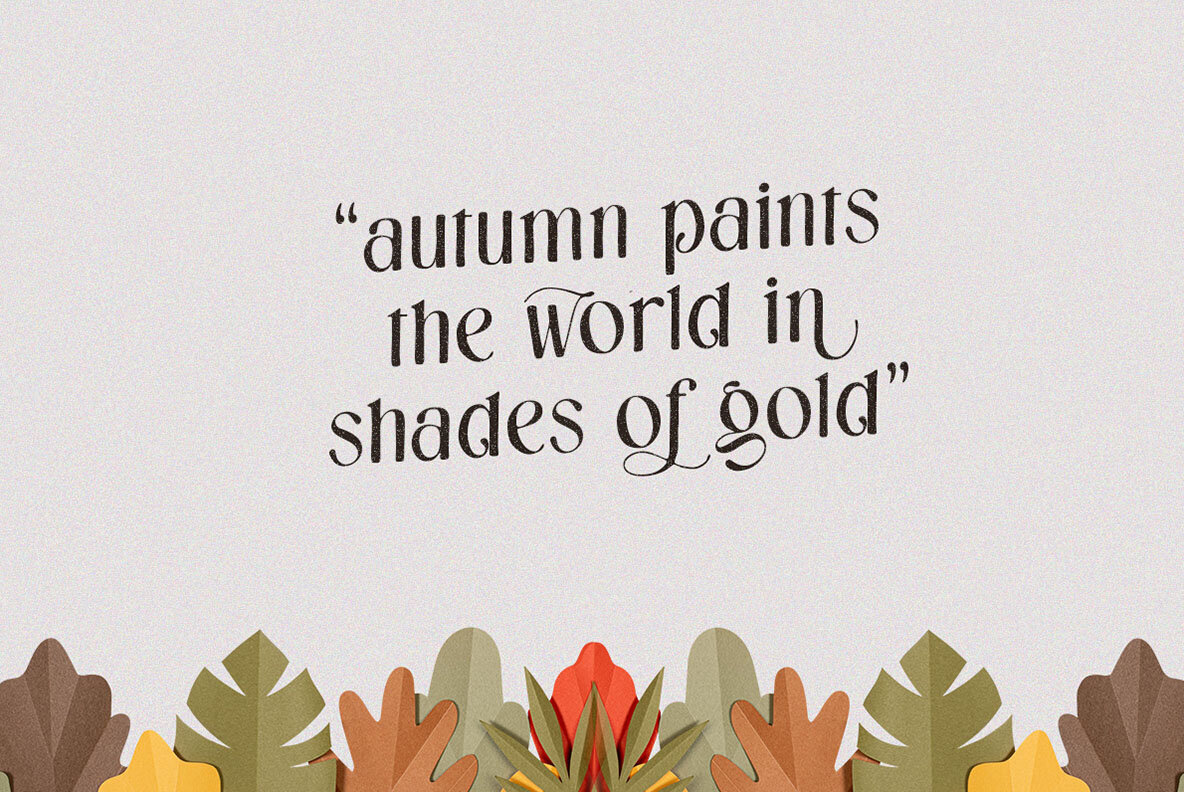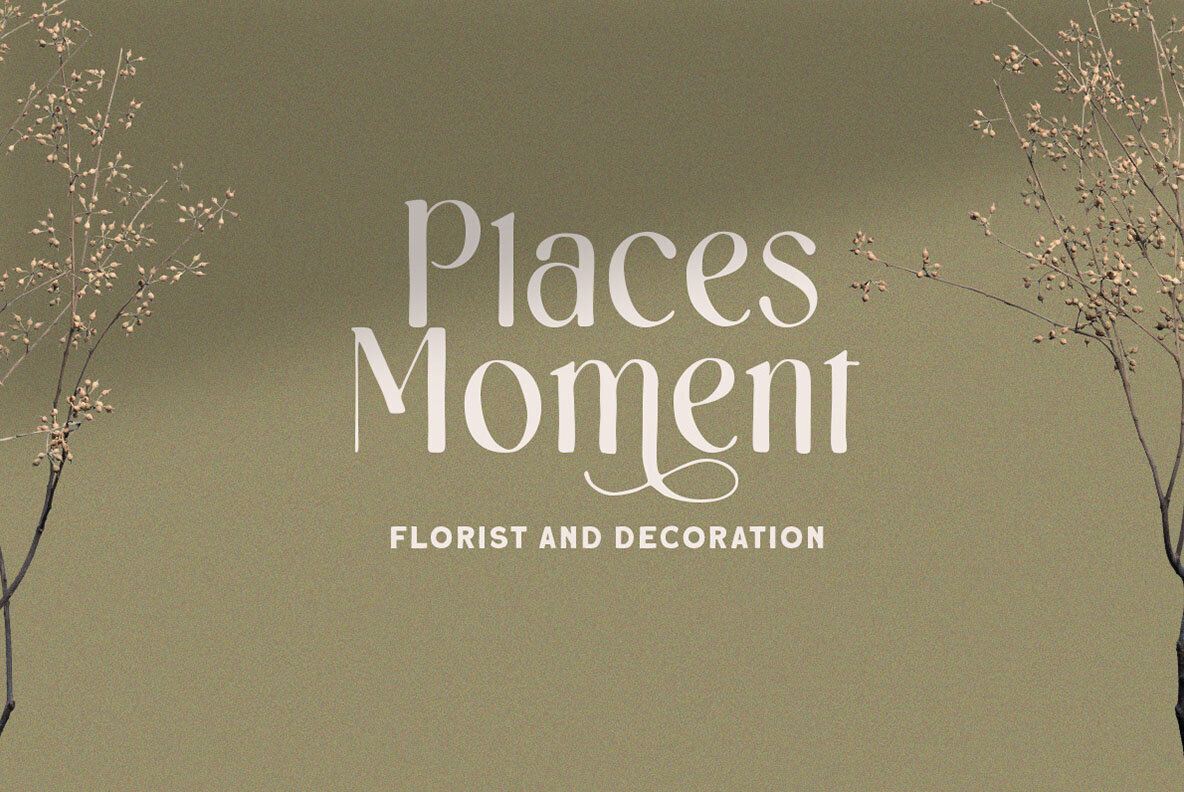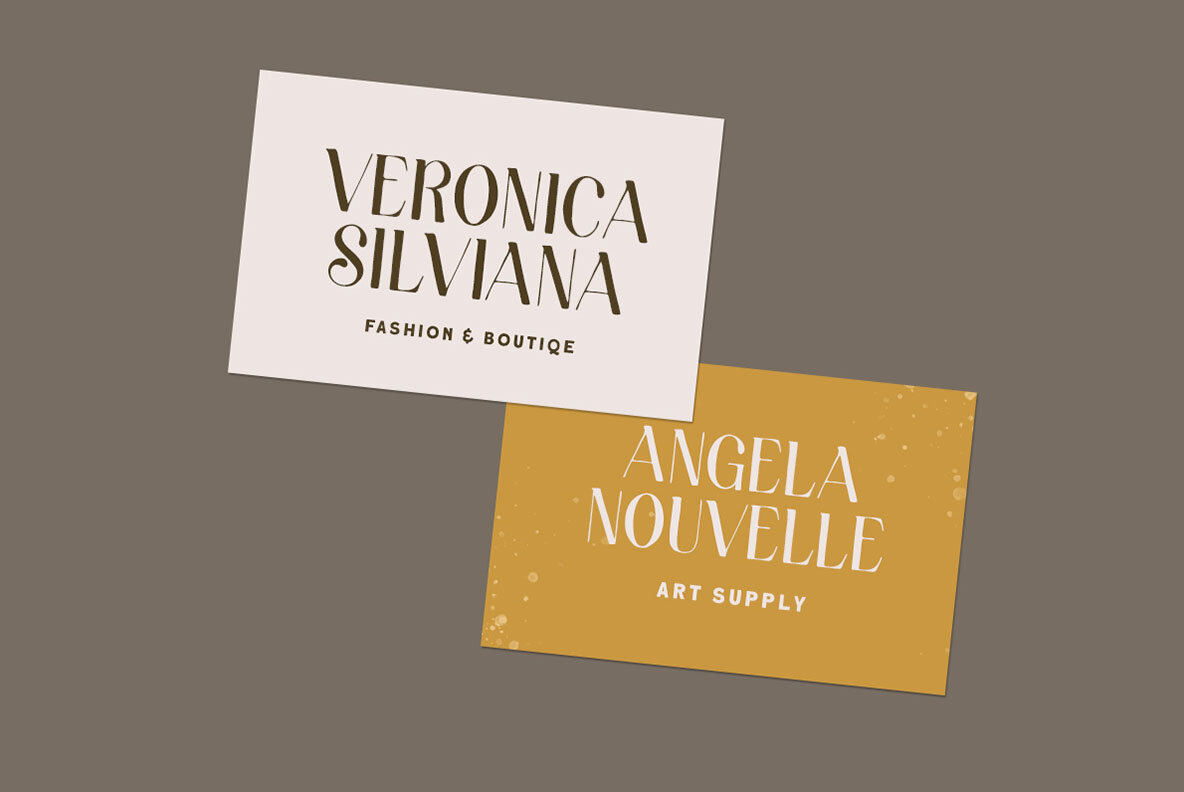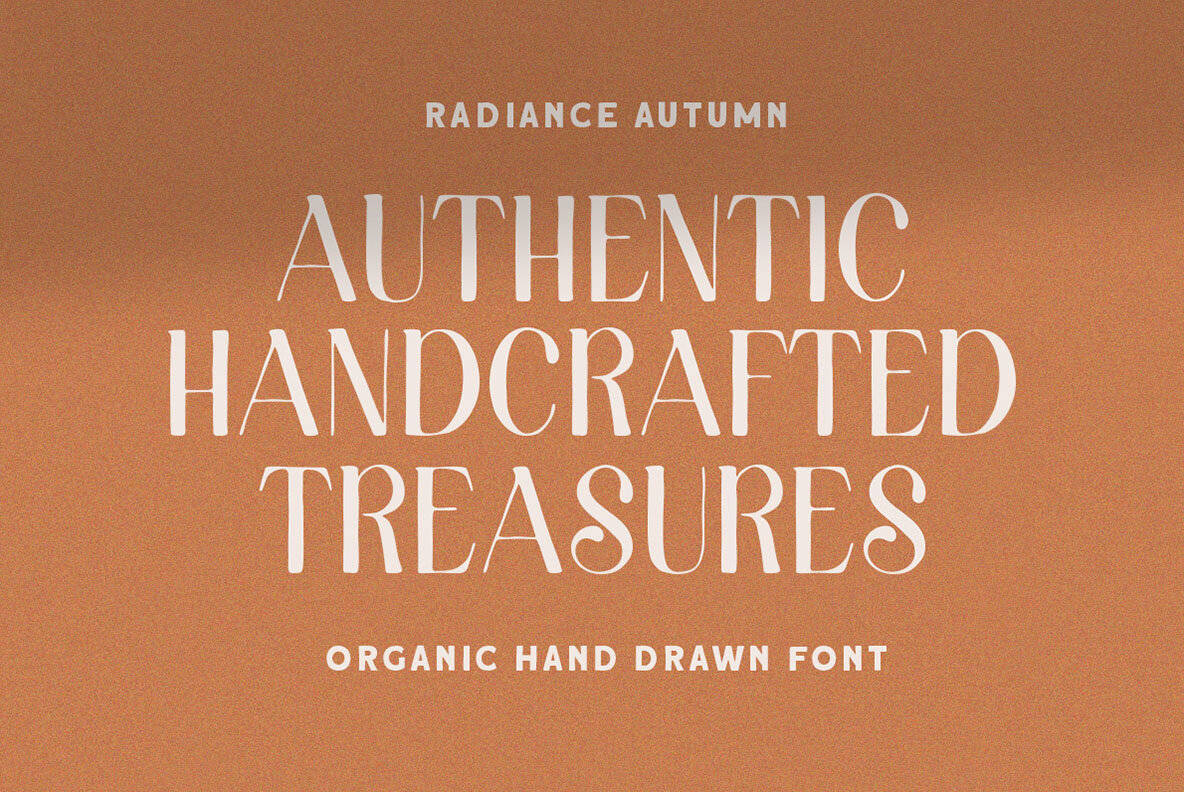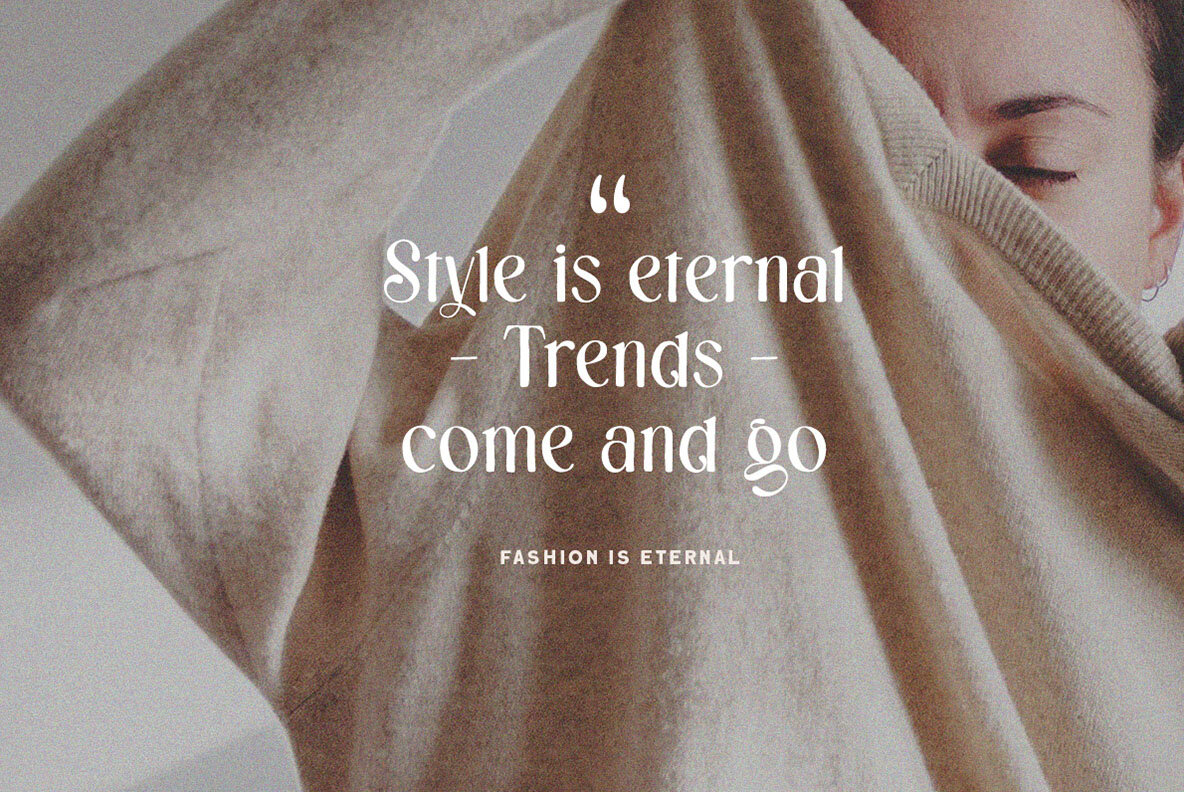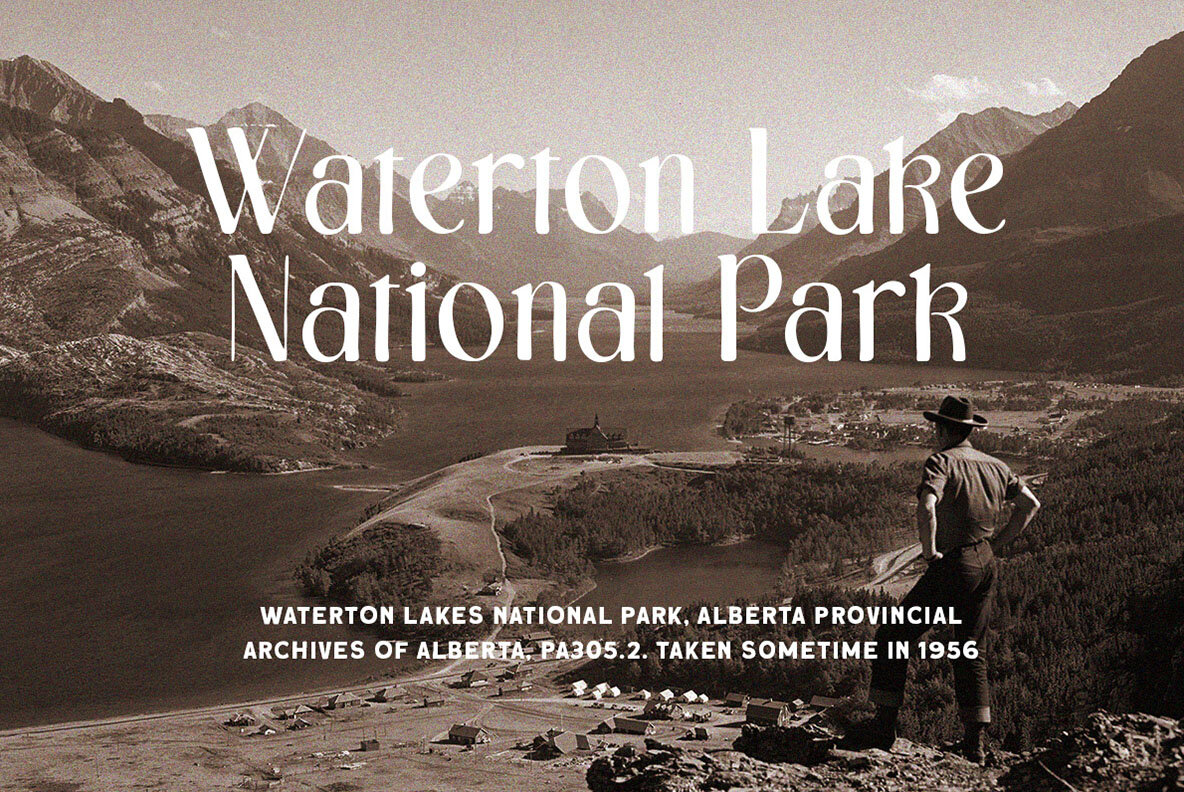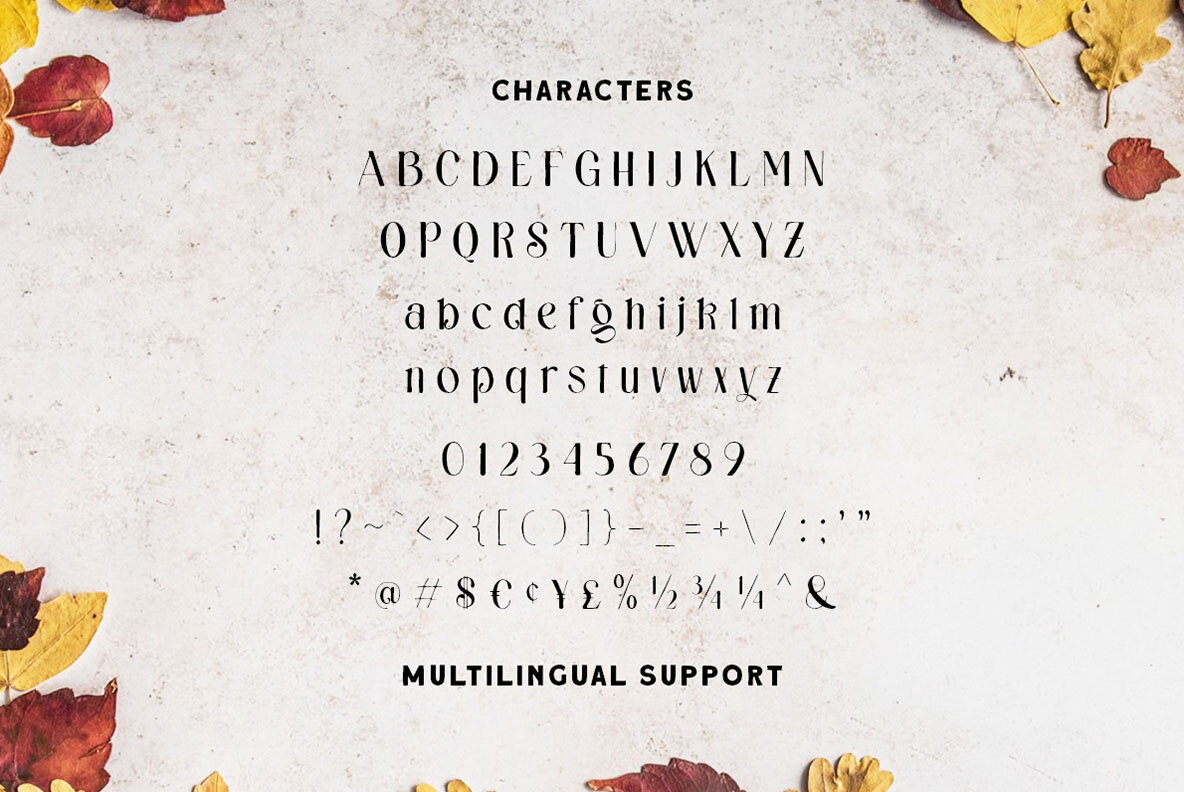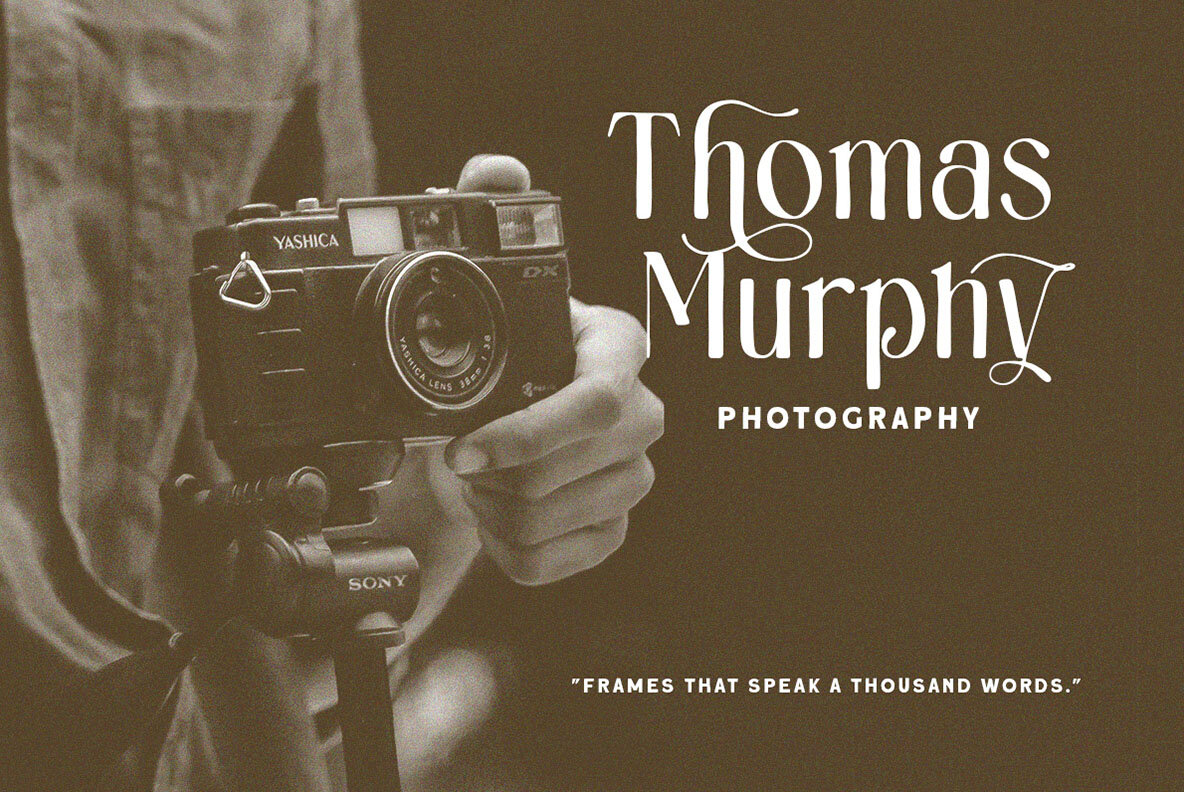
Radiance Autumn does not just promise an ordinary design experience; it offers a jubilant escapade into the realm of creativity and imagination. With its origins rooted in the liberal designs of Letterhend Studio, Radiance Autumn harmoniously blends stylish elegance with the pleasantness of a hand-drawn aesthetic. An epitome of versatility, Radiance Autumn doesn't confine itself to only being a stunning ally for cartoon or child-themed designs; it fearlessly transitions into various formal settings, be it an invitation, a classy label, or an ingenious logo. This organically hand-drawn font effortlessly strikes a balance between distinctiveness and spontaneity that's unrivalled. Included in Radiance Autumn: In a world dominated by regular and mass-produced fonts, let Radiance Autumn guide you back to the simple joys of unique and embodied design. With its irresistible appeal and inimitable style, Radiance Autumn is not just a font, it's a gateway to aesthetic excellence. Whether you're a graphic designer or marketing firm, get ready to captivate your audience's attention as you incorporate the Radiance Autumn into your design repertoire.Discover the Artistic Appeal of Radiance Autumn: An Organic Hand-Drawn Font
Producing its magic on the canvas of your choice, Radiance Autumn sets itself apart by bringing back childlike delight without compromising any bit of its refined attractiveness. Challenge the common with Radiance Autumn and let your designs exude an aura of sophisticated charm laced with hints of nostalgia.